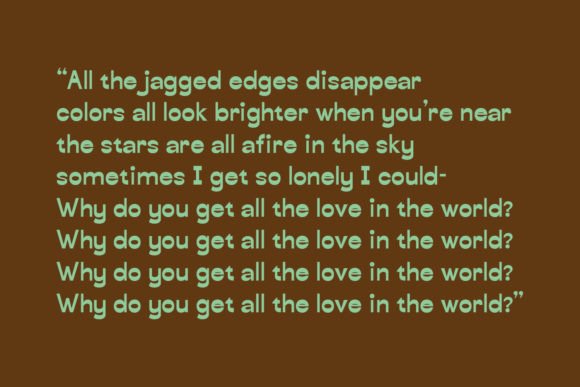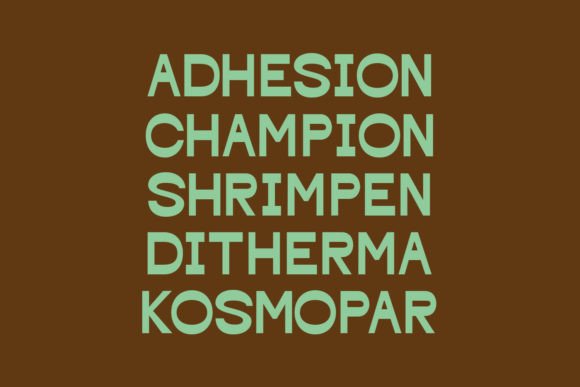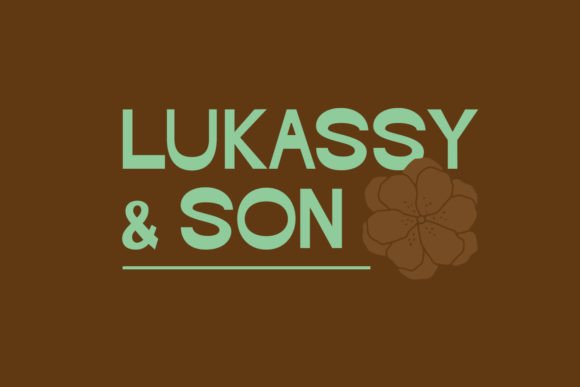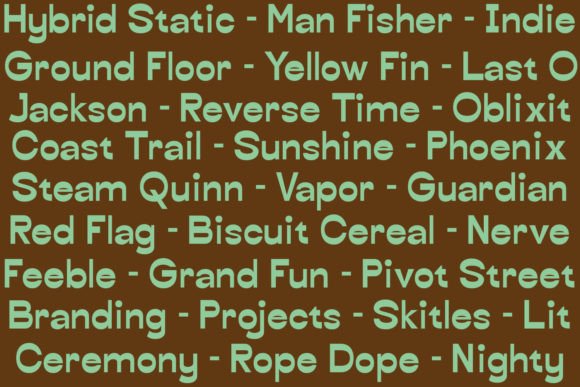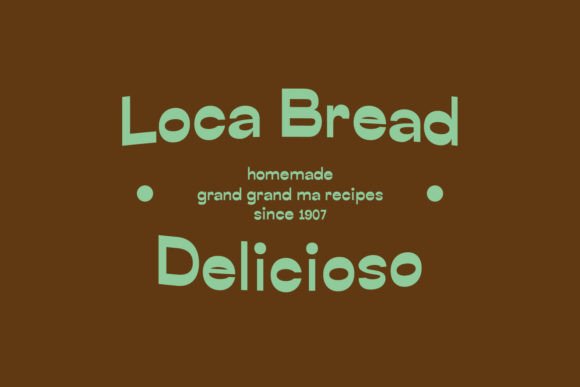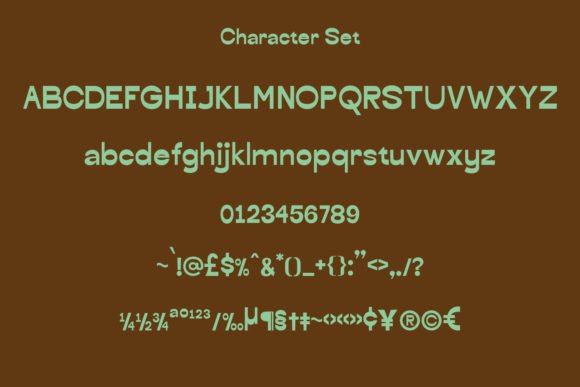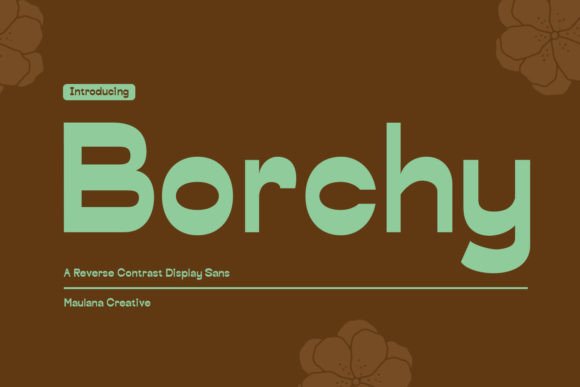
The Ultimate Guide to Borchy Font: A Cool Sans Display Font with a Twist
Have you ever been in the middle of a design project, and suddenly, you just can’t seem to find the right font? I know I have. It was a typical Wednesday afternoon when I was working on a branding project for a trendy new cafe. My client wanted a font that was modern, edgy, and would stand out on their signage. I scoured the internet, tried out dozens of fonts, but nothing seemed quite right. That was until I stumbled upon Borchy Font.
Borchy is a cool sans display font with a reverse contrast that adds a unique touch to any design project. I was immediately drawn to its quirky style and versatility. In this article, I’ll share my honest review of Borchy Font, provide a practical guide on how to use it, and explore similar fonts you might love.
My Honest Review of Borchy Font
• ✨ Unique reverse contrast style that adds a touch of sophistication to any design
• ✅ Highly legible, even at smaller sizes
• 💡 Great for headlines, titles, and short paragraphs of text
• 🎨 Works well with a variety of design styles, from modern to minimalist
While Borchy Font is an excellent choice for many design projects, there are a few things to keep in mind:
• 🤔 May not be the best choice for body text or longer paragraphs, as it can be a bit too bold
• ⚠️ Some users may find the reverse contrast style too unconventional or distracting
The Story Behind Borchy Font
Borchy Font was designed by a team of creatives who wanted to create a unique and versatile font that would add a touch of personality to any design project. Inspired by modern design trends and a passion for typography, Borchy Font was born. With its reverse contrast style and highly legible design, Borchy Font is perfect for designers, crafters, and creative hobbyists who want to add a little something extra to their designs.
Q: What is the best way to use Borchy Font?
A: Borchy Font is best used for headlines, titles, and short paragraphs of text. It’s perfect for adding a touch of personality to your design projects.
Q: Is Borchy Font suitable for body text?
A: While Borchy Font is highly legible, it may not be the best choice for body text or longer paragraphs. It’s a bit too bold and may be distracting for readers.